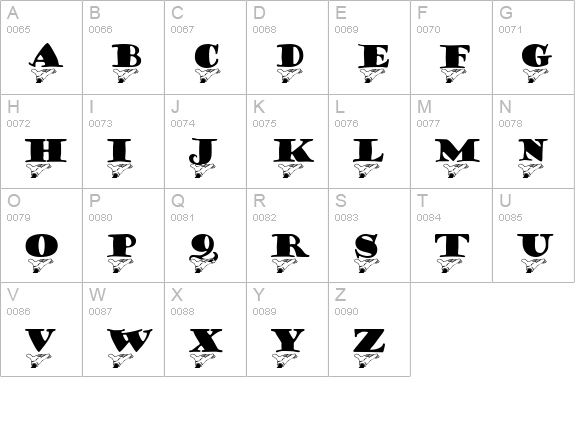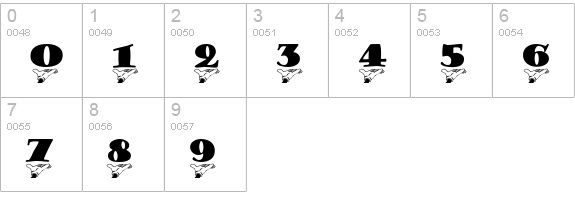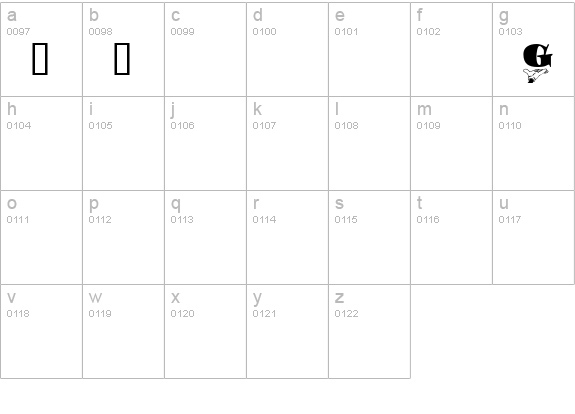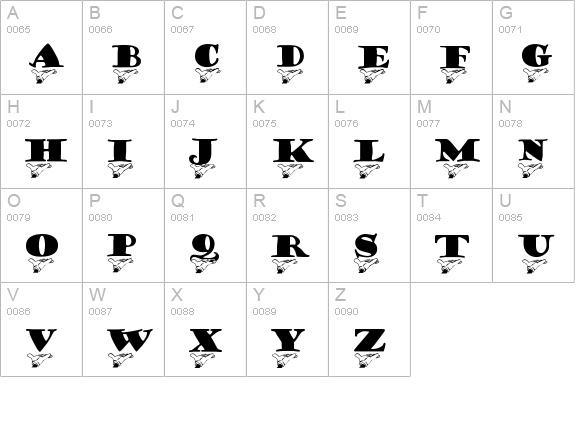
Portage Font Details
Portage font is a versatile and elegant typeface that exudes a sense of sophistication and modernity. With its clean lines and stylish appearance, Portage is perfect for a wide range of design projects, from branding and advertising to editorial and web design. This versatile font strikes the perfect balance between professionalism and creativity, making it a great choice for any designer looking to make a statement. What makes Portage font even more appealing is that it is completely free to download at FontsMarket.com. This means that you can easily access this high-quality font without any cost, making it a valuable addition to your font collection. Whether you are a professional designer or a hobbyist looking to elevate your projects, Portage font is sure to impress with its timeless appeal and sleek design. Download Portage font today and add a touch of sophistication to your next design project.